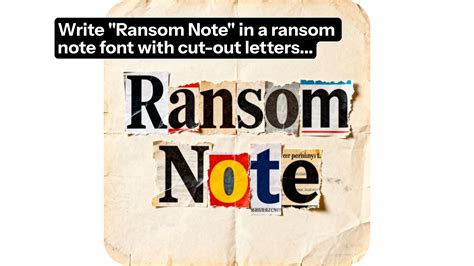
Ransom Font Generator. The following tool will convert your text into graphics using ransom fonts. Web use our ransom note text effect generator, for free!
Simply enter your text, select a color and text effect, and hit generate button. Web use our ransom note text effect generator, for free! The following tool will convert your text into graphics using ransom fonts. Ransom note fonts use different styles of type for each letter, making the sentence look mixed or juxtaposed. Enter your ransom note text. Colors, fonts and other options. Perfect for logos, posters, and other. Web create a bold statement with 'free ransom note fonts'. Web create text graphics with ransom fonts. This style is rooted in clipping out letters from.
Enter your ransom note text. This style is rooted in clipping out letters from. Ransom note fonts use different styles of type for each letter, making the sentence look mixed or juxtaposed. Web create text graphics with ransom fonts. Web create a bold statement with 'free ransom note fonts'. The following tool will convert your text into graphics using ransom fonts. Colors, fonts and other options. Web use our ransom note text effect generator, for free! Perfect for logos, posters, and other. Simply enter your text, select a color and text effect, and hit generate button.